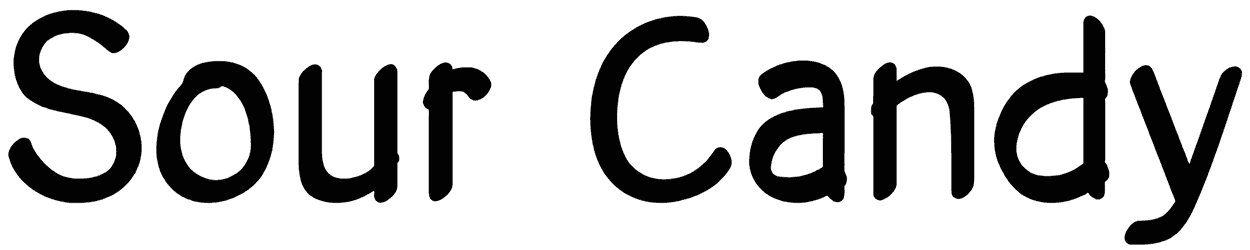
Sour Candy Font
When the audience sees your graphic content, while their eyes go up and down following the soft flow of a cartoon font such as Sour Candy, they will immediately fall in love with your artwork including magazines, web pages, headlines, logos, and flyers.
In addition, this magical font has the real potential to bring a sense of drama, playfulness, youth, and comfort to your graphic content.